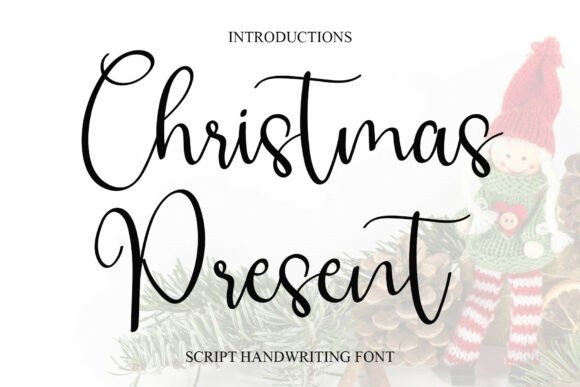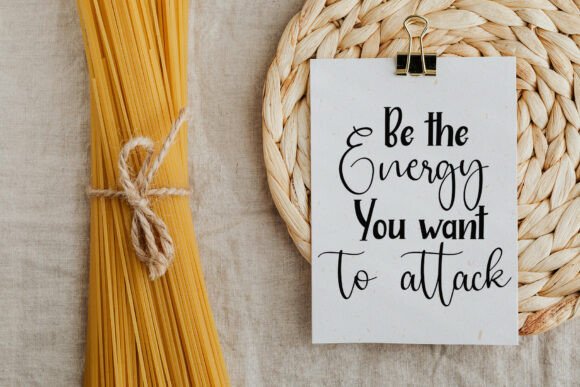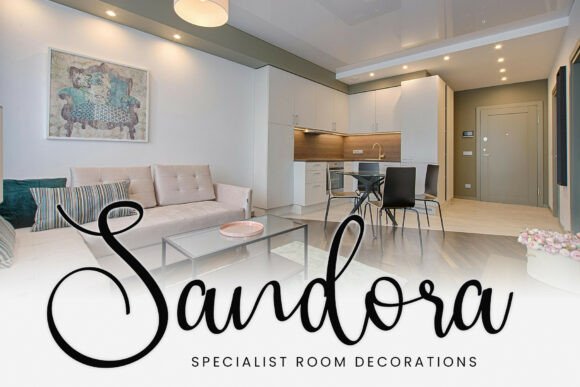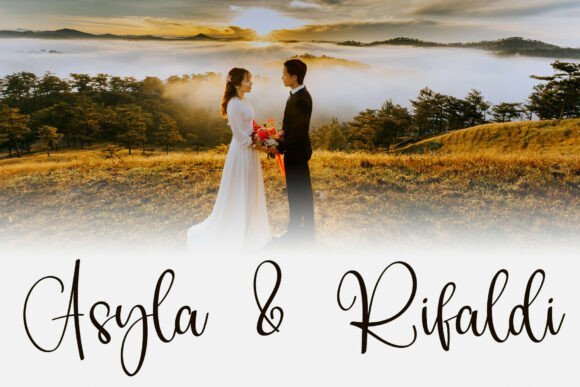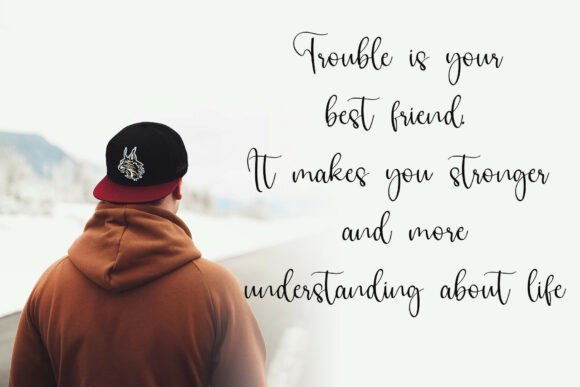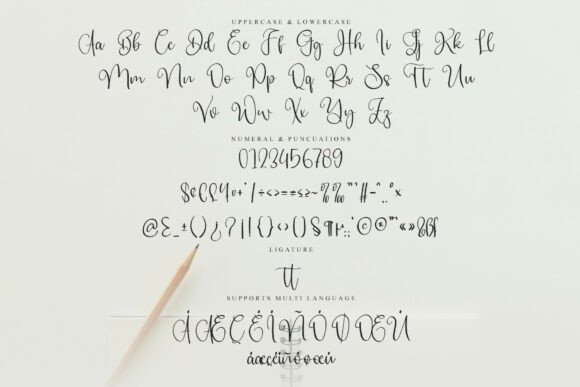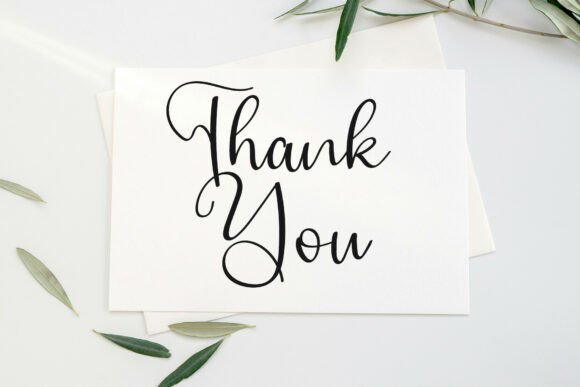
Unwrapping the Magic of Handwritten Style
Have you ever been inspired by the warmth and charm of a handwritten note, only to find yourself struggling to replicate that same feeling on a digital canvas? I know I have. The search for the perfect font to evoke that same sense of personality and elegance can be a daunting task, but what if I told you that there’s a font that can make all the difference?
Meet the Christmas Present Font, a stylish handwritten script font that embodies the perfect blend of elegance and playfulness. With its flowing curves and natural rhythm, this font adds a personal touch to invitations, branding, and social media, making it a valuable asset for designers looking to elevate their creative projects.
Whether you’re a seasoned designer or just starting out, the Christmas Present Font is sure to bring warmth, sophistication, and creativity to your work. Its unique design makes it the perfect choice for adding a personal touch to any project, making it a must-have in every designer’s toolkit.
Christmas Present Font Key Features
- Unique Characteristics: Christmas Present Font features a playful, handwritten design with a mix of bold and cursive elements, perfect for adding a festive touch to holiday-themed projects.
Christmas Present Font Review
Overall, I’d say the Christmas Present Font is a unique addition to any holiday design project. Here are some things that work well:
- ✨ Fun and playful feel: The font has a whimsical quality that’s perfect for festive designs, like holiday cards and gift tags.
- ✨ Good for headings: The font is bold and eye-catching, making it ideal for headings and titles.
- ✨ Supports various languages: The font supports a wide range of languages, which is a plus for designers who work with clients from different regions.
- ⚠️ Limited font sizes: The font looks a bit distorted at larger sizes, which can make it difficult to read.
- ⚠️ Not ideal for body text: The font is best suited for headings and titles, as the letterforms can be a bit cluttered for body text.
- ⚠️ Not as versatile as other fonts: The font’s festive feel can make it feel a bit too “on the nose” for some projects, limiting its versatility.
Overall, I’d say the Christmas Present Font is a great choice for holiday designs, but it’s not a one-size-fits-all solution. Use it sparingly and strategically, and you’ll be sure to create some festive and fun designs.
“Christmas Present Font” is ideal for:
- Creating festive holiday designs for social media, websites, and print materials.
- Designing gift tags, cards, and invitations for special occasions.
- Adding a playful touch to newsletters, blog posts, and other digital content.